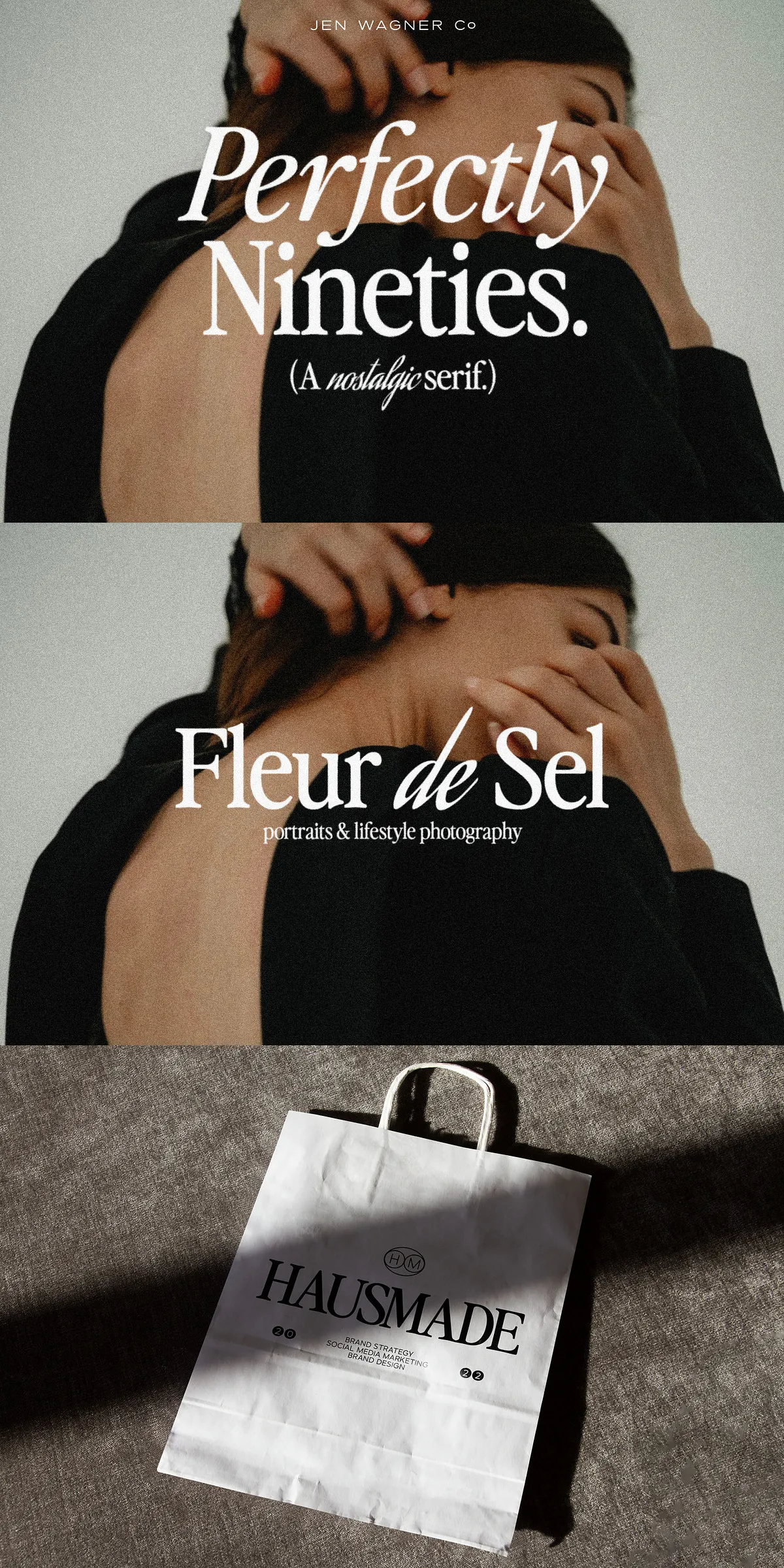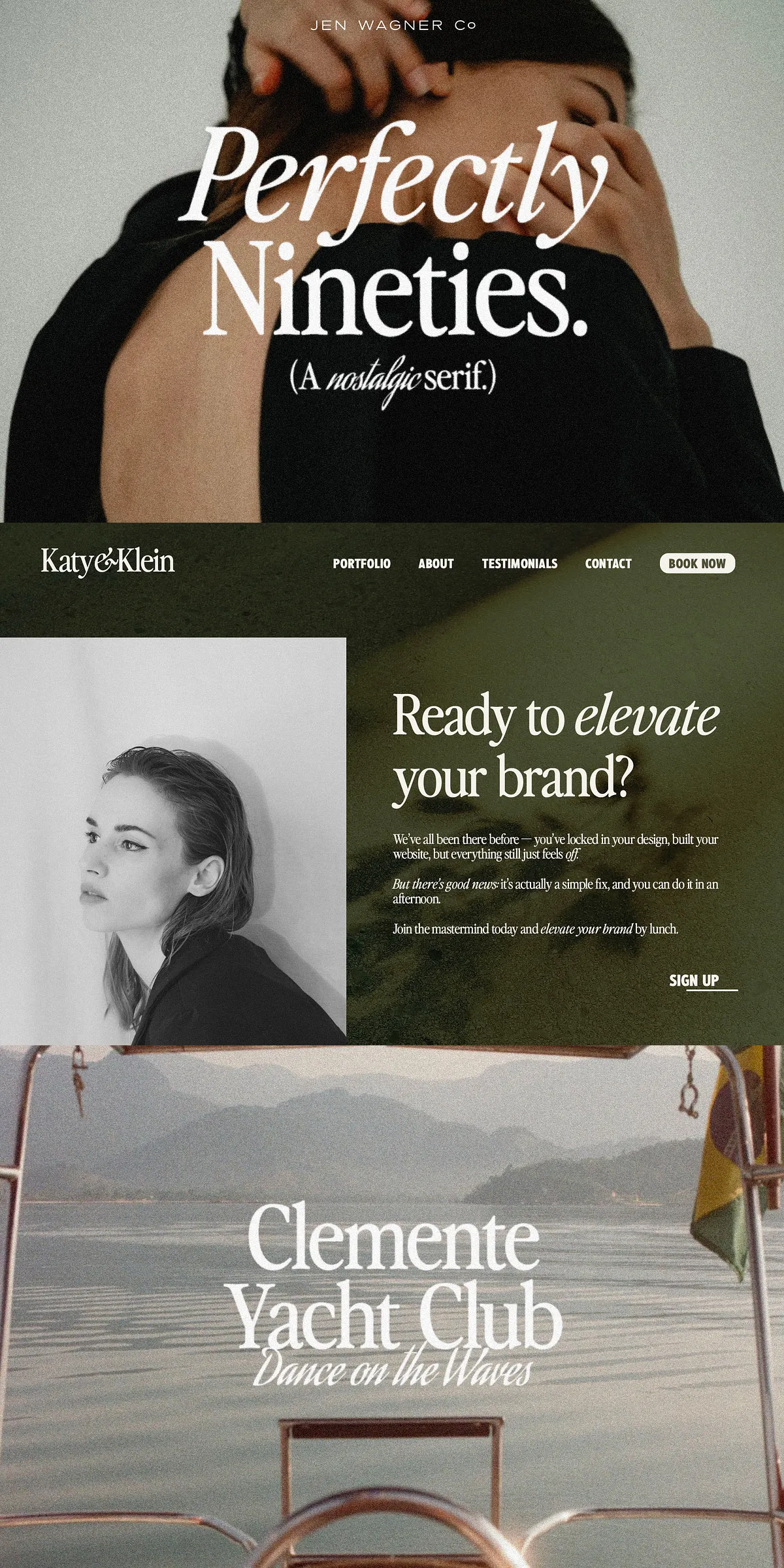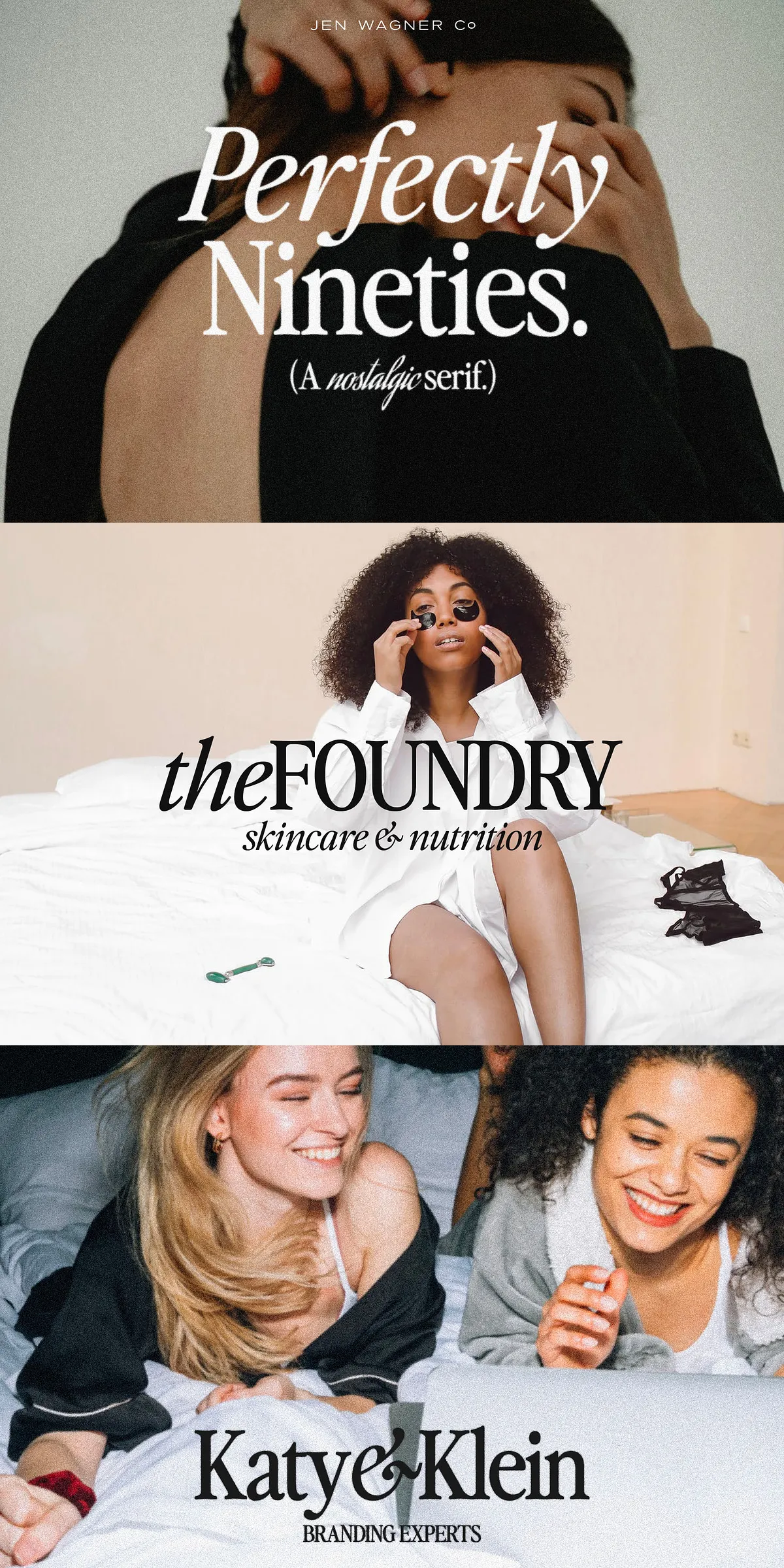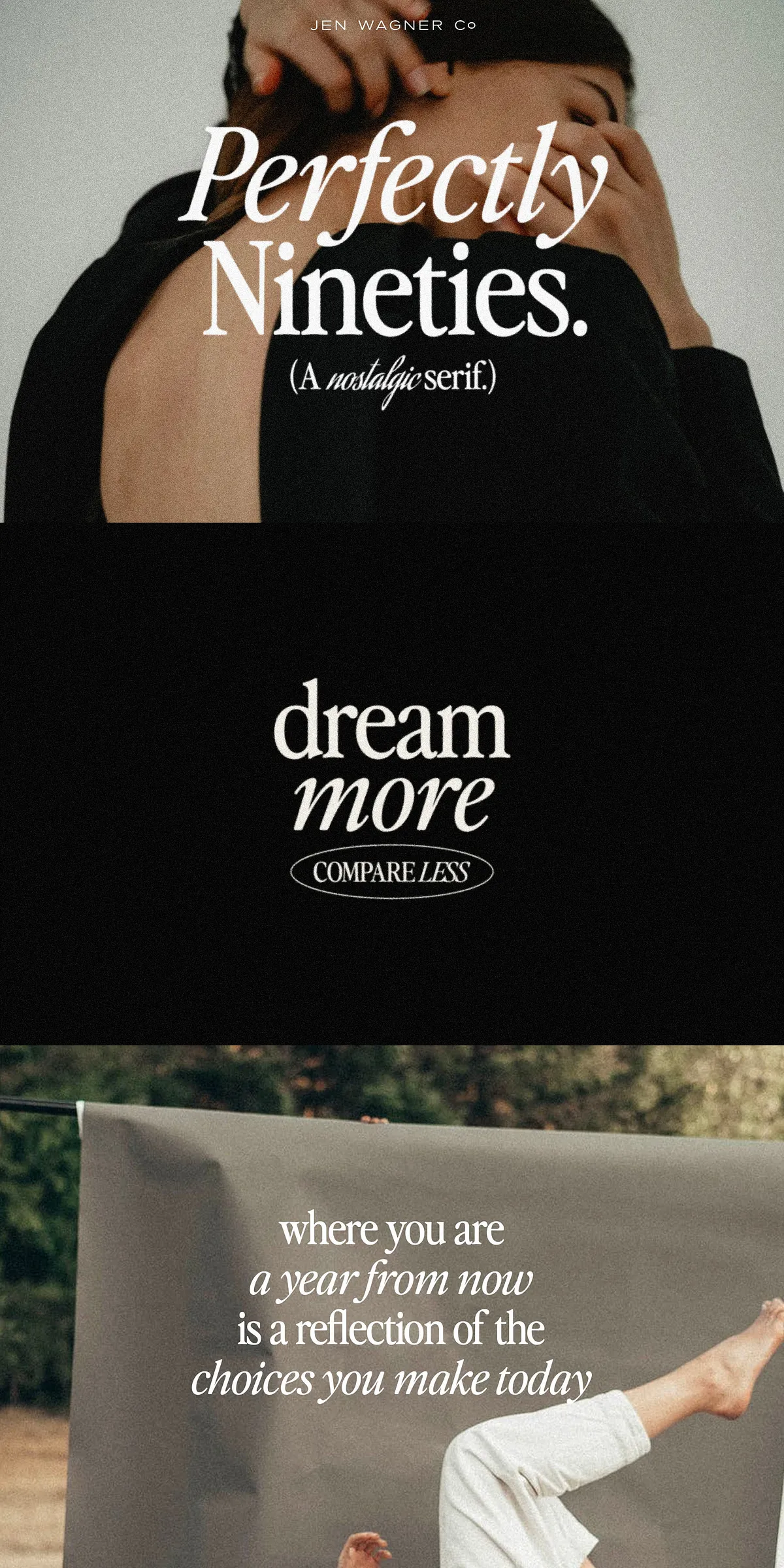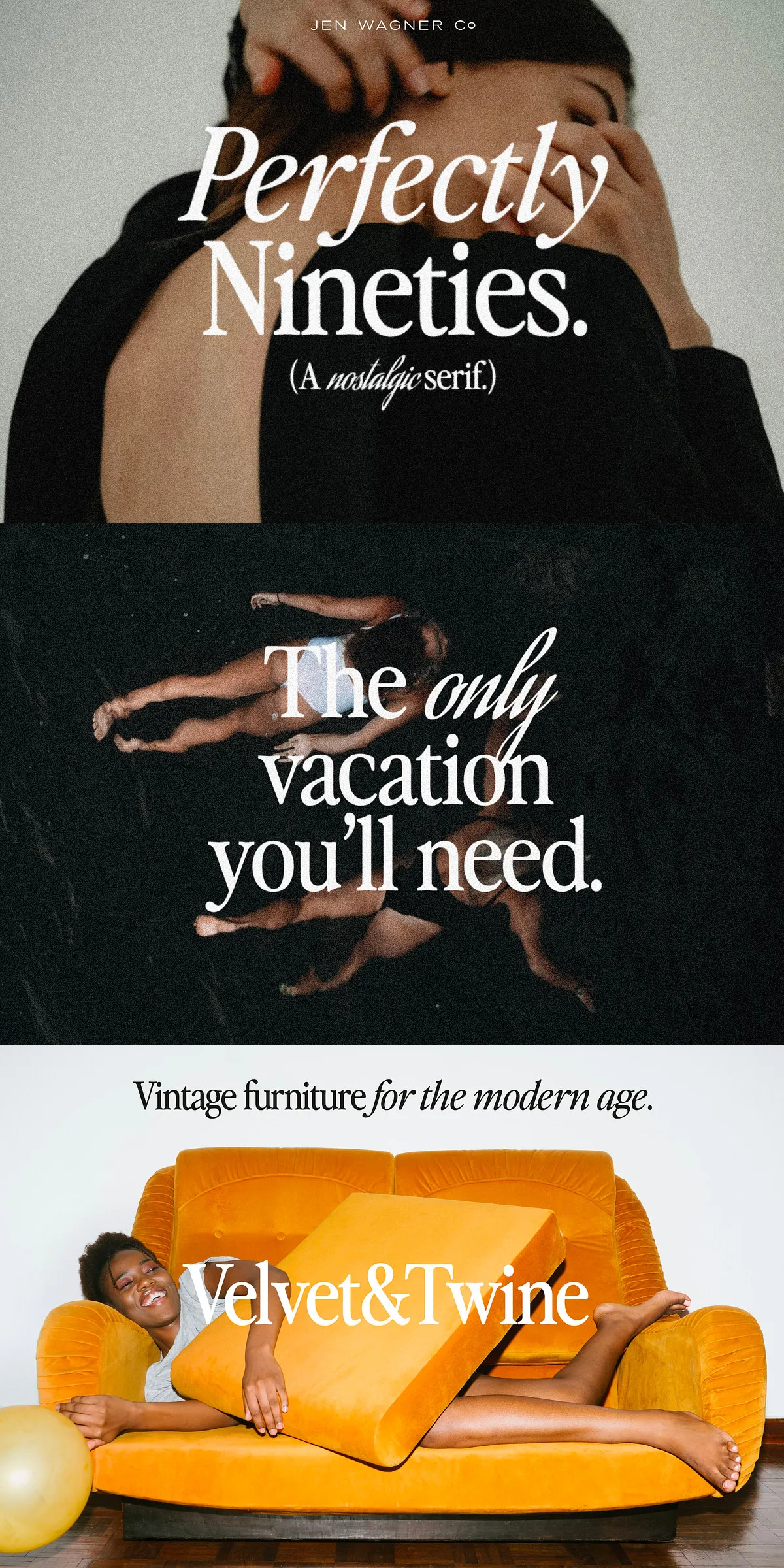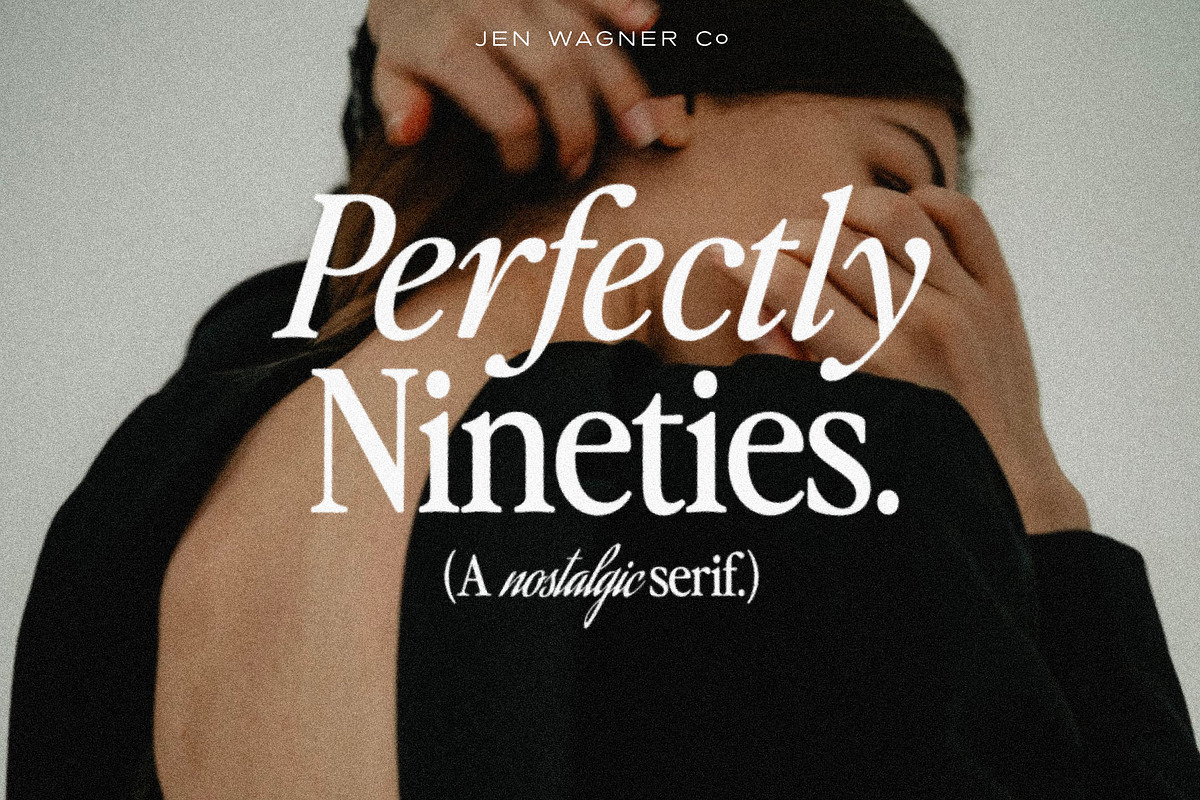
Perfectly Nineties | Nostalgic Serif
Breathe new life into your designs with Perfectly Nineties — a thoughtfully crafted serif typeface that channels the bold, tight-kerned aesthetic of classic 80s and 90s typography. This isn’t just a font — it’s a cultural revival, a tribute to vintage magazine layouts, retro branding, and the unmistakable energy of an era that still defines modern design trends. Whether you’re crafting a striking poster, designing a sleek fashion spread, or building a nostalgic website, Perfectly Nineties delivers instant impact.
Bold Heritage, Modern Versatility
Perfectly Nineties is engineered for dual purpose: it performs brilliantly as a display typeface and stands up impressively in body text. With perfectly balanced proportions and carefully tuned letter spacing, it maintains readability while exuding character. The upper and lowercase forms are meticulously crafted to reflect the tight, compact geometry popularized in mid-90s print culture — making it ideal for high-impact headlines, album covers, and editorial layouts.
Unlock Creative Magic with Two Dynamic Styles
Get the full expressive power with both Regular and Italic versions, each designed to be used both independently and in combination:
• Regular: Use for clean, authoritative headlines and body text. Perfect for magazine features, product labeling, and minimalist branding.
• Italic: Ideal for accent words, pull quotes, or creative pairings. Try combining it with Regular in a single word (like “Missfits”) for that authentic 90s edge.
• Full character set: Includes numbers, punctuation, symbols, and diacritics for global usability.
Smart Spacing: Optimize for Every Application
One intentional feature of Perfectly Nineties is its standard spacing — designed for comfortable reading in body text. However, for display use, tighten the letter spacing to enhance its vintage charm. We recommend setting the tracking between -10 and -20 for maximum visual punch. This simple adjustment turns a readable typeface into a bold artistic statement.
Designed for Global Creators — Full Multilingual Support
Perfectly Nineties isn’t limited to English. With comprehensive support for Western, Central, and Eastern European languages, it empowers creators worldwide. Whether you’re designing in French, German, Spanish, Italian, or Polish, all accented characters, ligatures, and punctuation render flawlessly. Use it confidently for international branding, multilingual web pages, or global campaigns.
Perfect for These Creative Uses:
• Retro Branding & Logotypes: Build instantly recognizable identities with a nod to the past.
• Fashion & Lifestyle Websites: Create editorial-style headers and featured content that feels authentic and edgy.
• Vintage Album & Poster Design: Bring iconic music culture to life with authentic typography.
• Magazine & Zine Layouts: Use with the bonus actions to emulate real print layouts from the 90s.
• Instagram & Social Media Content: Craft nostalgic posts that stand out in crowded feeds.
• Event Invitations & Merchandise: Design T-shirts, stickers, and event materials with a timeless retro vibe.
Pro Tips for Maximum Impact
• Pair Perfectly Nineties with a clean sans-serif like Inter or Helvetica for body copy when using it in display-heavy layouts.
The Final Word: More Than a Font — A Design Movement
Perfectly Nineties isn’t just a return to the past — it’s a reinvention of it. It captures the spirit, energy, and boldness of 80s and 90s design while adapting seamlessly to modern digital environments. With its dual-style flexibility, built-in vintage tools, and global readiness, it’s the ultimate choice for designers who want to be both relevant and radical.